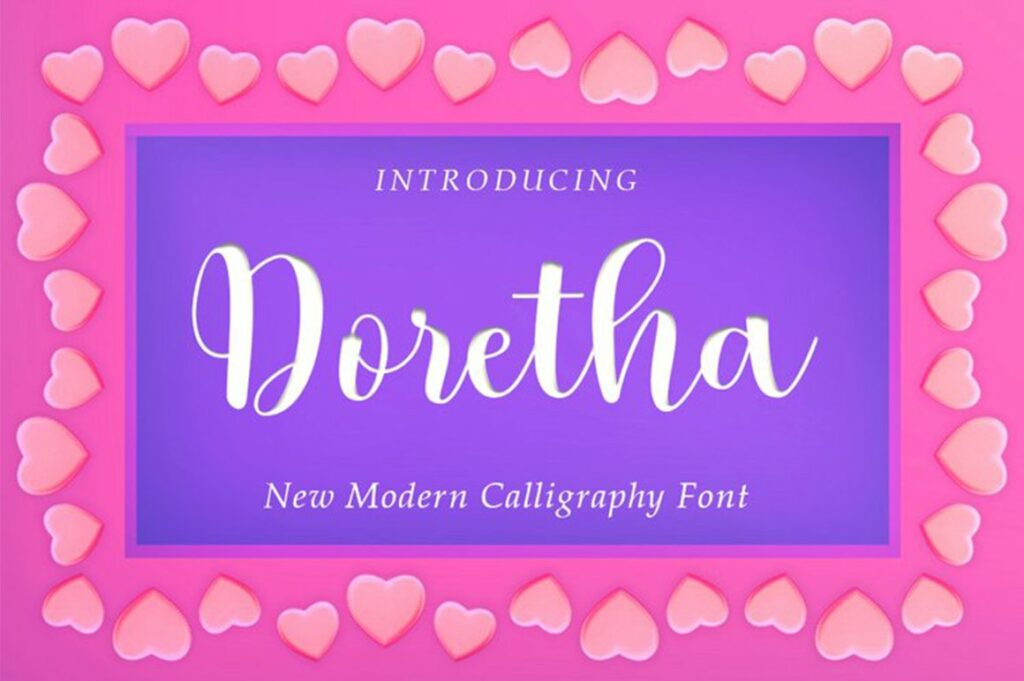
Doretha Font
Doretha is modern calligraphy script font that features a varying baseline, smooth, modern and elegant touch. It comes with a handy set of open type stylistic. You need a program that supports Open Type features such as Adobe Illustrator CS, Adobe Photoshop CC, Adobe Indesign, Microsoft Word 2010.
It is perfect for logo, greetings, branding, quotes, prints, invitations and crafting. All lowercase letters include alternates, beginning & end swashes, that makes the font look fabulous!
Doretha Calligraphy Script Font